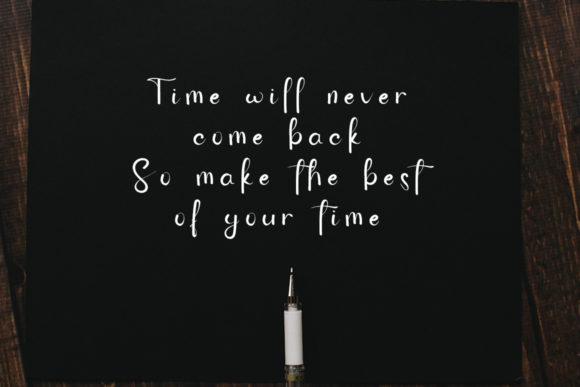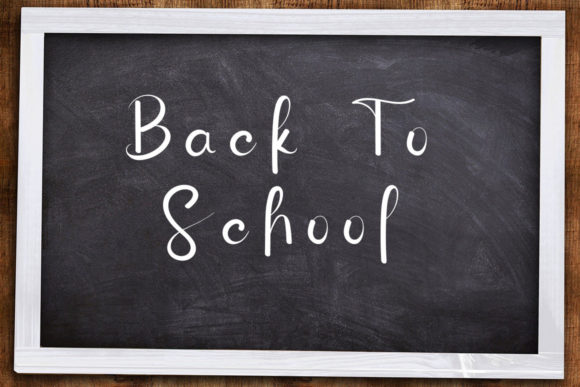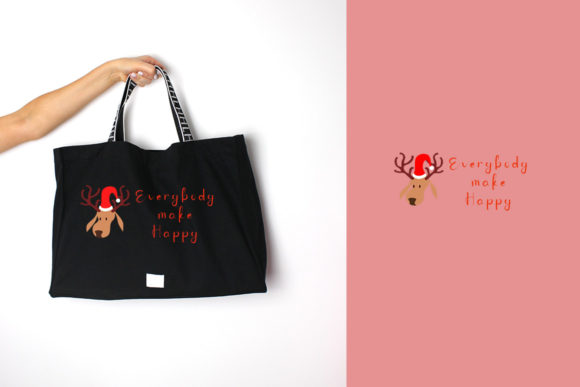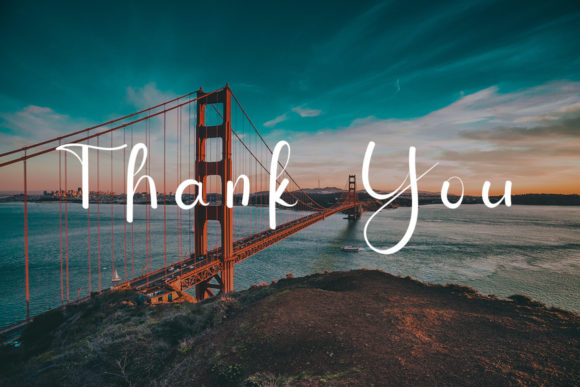
Introducing Handmade Farmhouse Font: Elevate Your Designs with a Touch of Elegance
Are you a designer, crafter, or DIY enthusiast looking for a font that exudes warmth, sophistication, and a hint of rustic charm? Look no further than the Handmade Farmhouse Font, a beautiful handwritten typeface that is sure to become your new favorite. With its perfect blend of classic calligraphic influences and modern flair, this exquisite font is ideal for a wide range of creative projects.
The Charm of Handmade Farmhouse Font
Handmade Farmhouse Font is a masterfully designed script font that boasts a unique, hand-crafted feel. Its elegant, flowing lines and carefully crafted letterforms evoke the charm of traditional calligraphy, while its contemporary style ensures it remains fresh and relevant. Whether you’re working on a branding project, crafting a wedding invitation, or creating a social media graphic, this versatile font is sure to impress.
Key Features of Handmade Farmhouse Font
- Exquisite Handwritten Style: Handmade Farmhouse Font features a beautiful, handwritten style that adds a personal touch to any design.
- Classy Calligraphic Influences: The font’s classic calligraphic influences give it a sophisticated, elegant feel that’s perfect for high-end designs.
- Contemporary and Fresh: Despite its traditional roots, Handmade Farmhouse Font has a modern, fresh feel that’s ideal for designers looking for a unique edge.
- Highly Versatile: This font is perfect for a wide range of creative projects, from branding and advertising to crafting and DIY.
Why Choose Handmade Farmhouse Font?
With so many fonts to choose from, why should you opt for Handmade Farmhouse Font? Here are just a few compelling reasons:
- Unique and Eye-Catching: Handmade Farmhouse Font is a true standout, with its distinctive style and elegant letterforms guaranteed to capture attention.
- Easy to Read: Despite its ornate style, this font is highly legible, making it perfect for designs that require a clear, easy-to-read message.
- Customizable: With its range of alternative characters and swashes, Handmade Farmhouse Font can be easily customized to suit your design needs.
Using Handmade Farmhouse Font in Your Designs
- Branding and Logo Design: Use Handmade Farmhouse Font to create a unique, memorable logo that reflects your brand’s personality and style.
- Wedding Invitations and Stationery: Add a touch of elegance and sophistication to your wedding invitations, stationery, and other paper crafts with this beautiful font.
- Social Media Graphics: Use Handmade Farmhouse Font to create eye-catching social media graphics that showcase your brand’s personality and style.
- Crafting and DIY Projects: Add a personal touch to your crafting and DIY projects, from knitting patterns to woodworking plans, with this charming font.
In conclusion, Handmade Farmhouse Font is a truly exceptional handwritten font that is sure to become a favorite among designers, crafters, and DIY enthusiasts. With its exquisite style, classic calligraphic influences, and modern flair, this font is perfect for a wide range of creative projects. Whether you’re looking to add a touch of elegance to your branding, create a unique wedding invitation, or simply add a personal touch to your crafting projects, Handmade Farmhouse Font is the perfect choice.